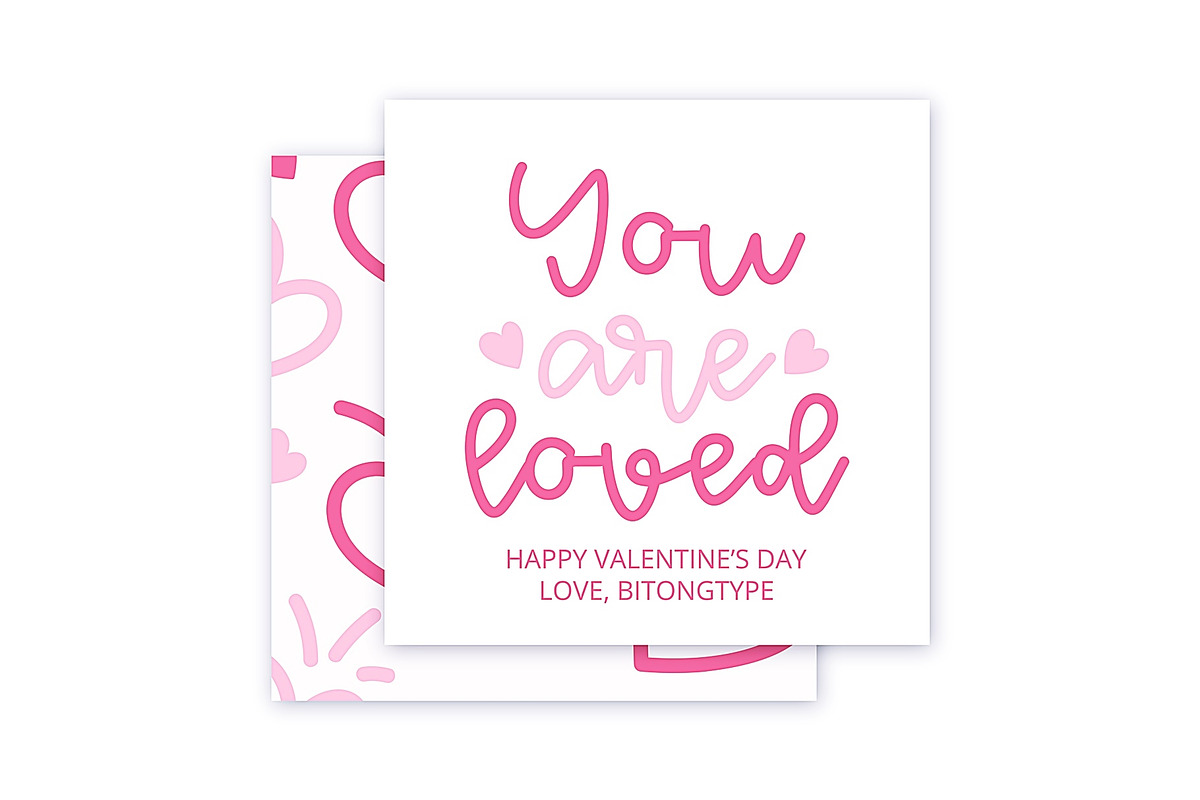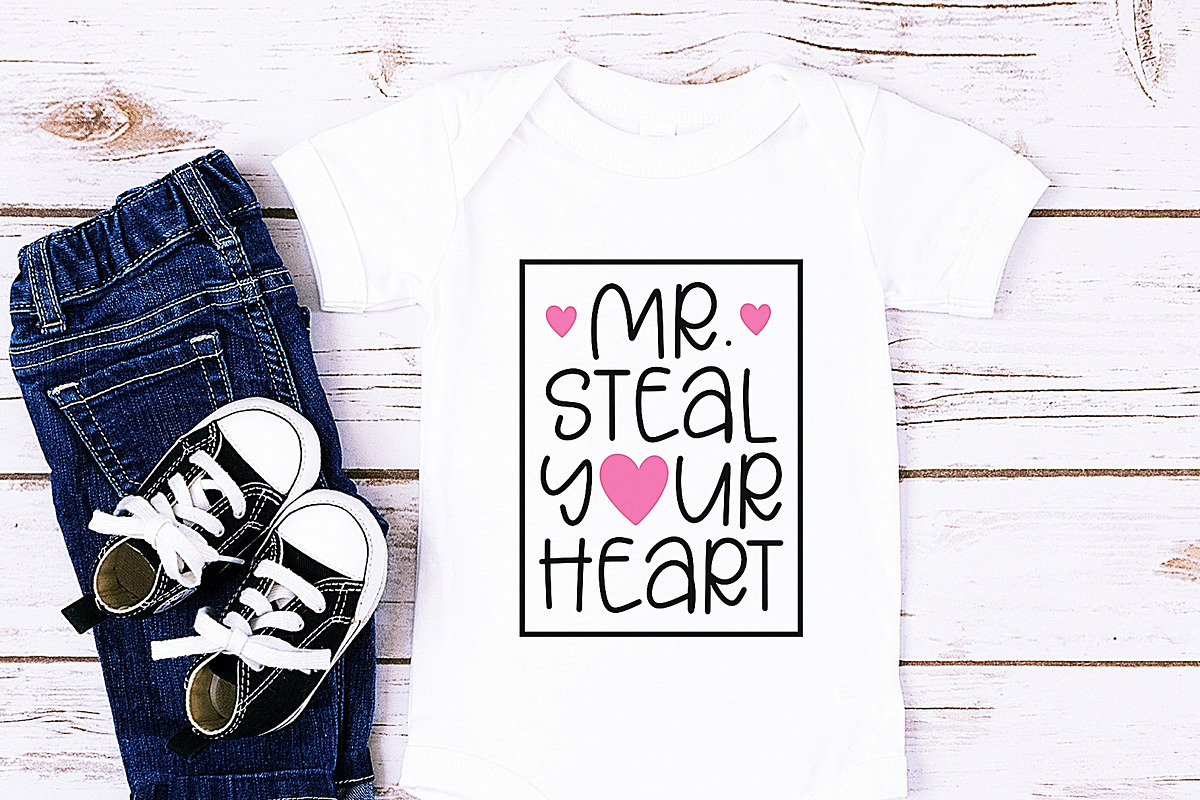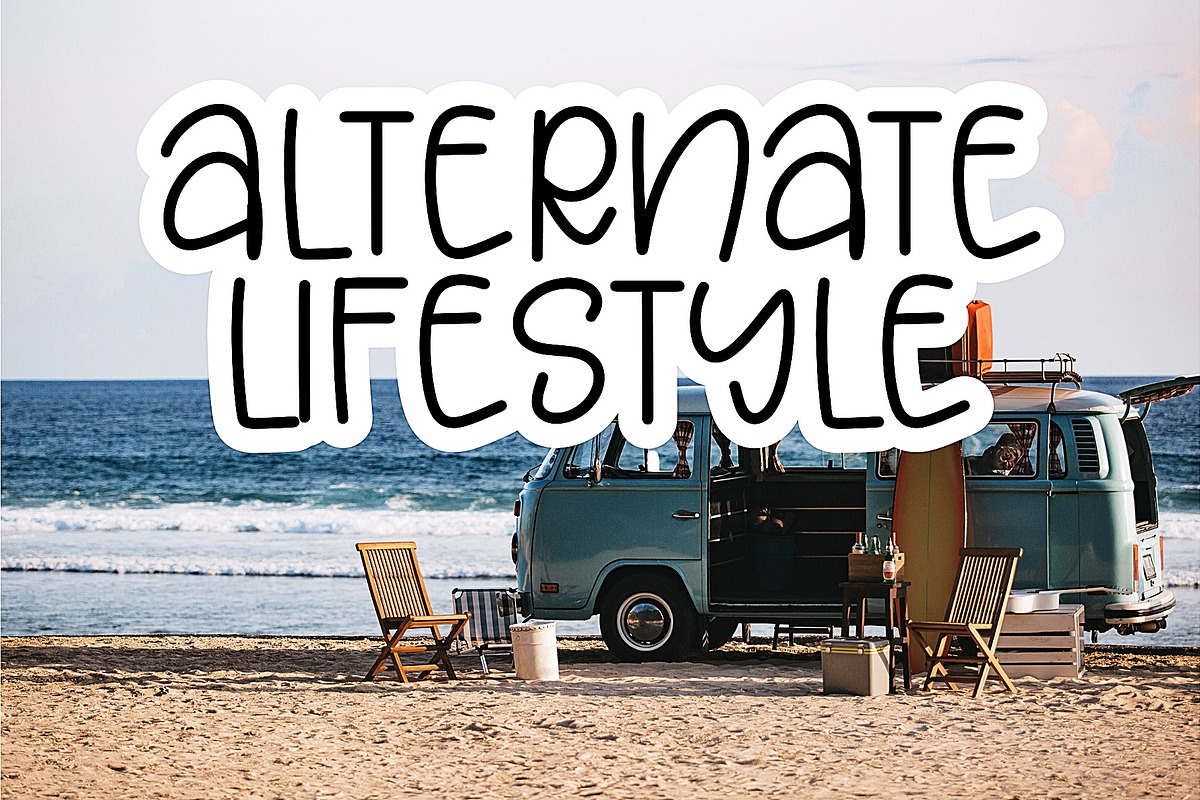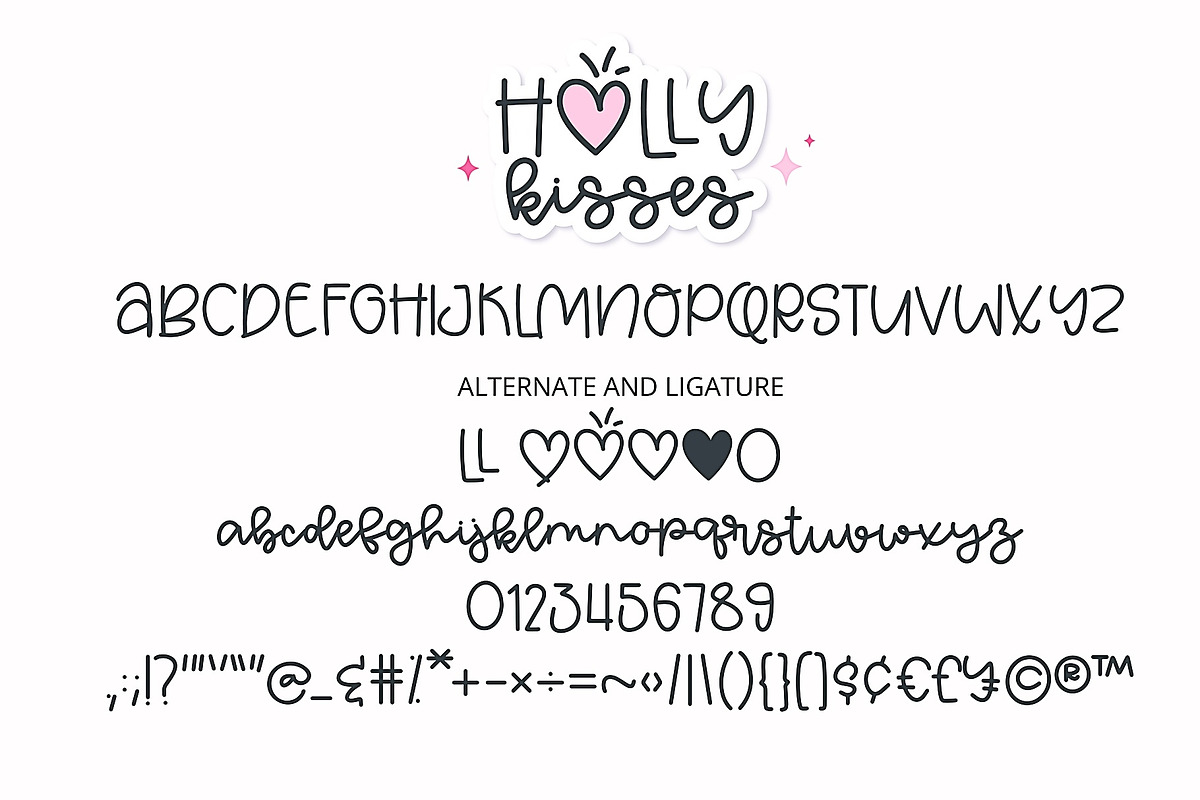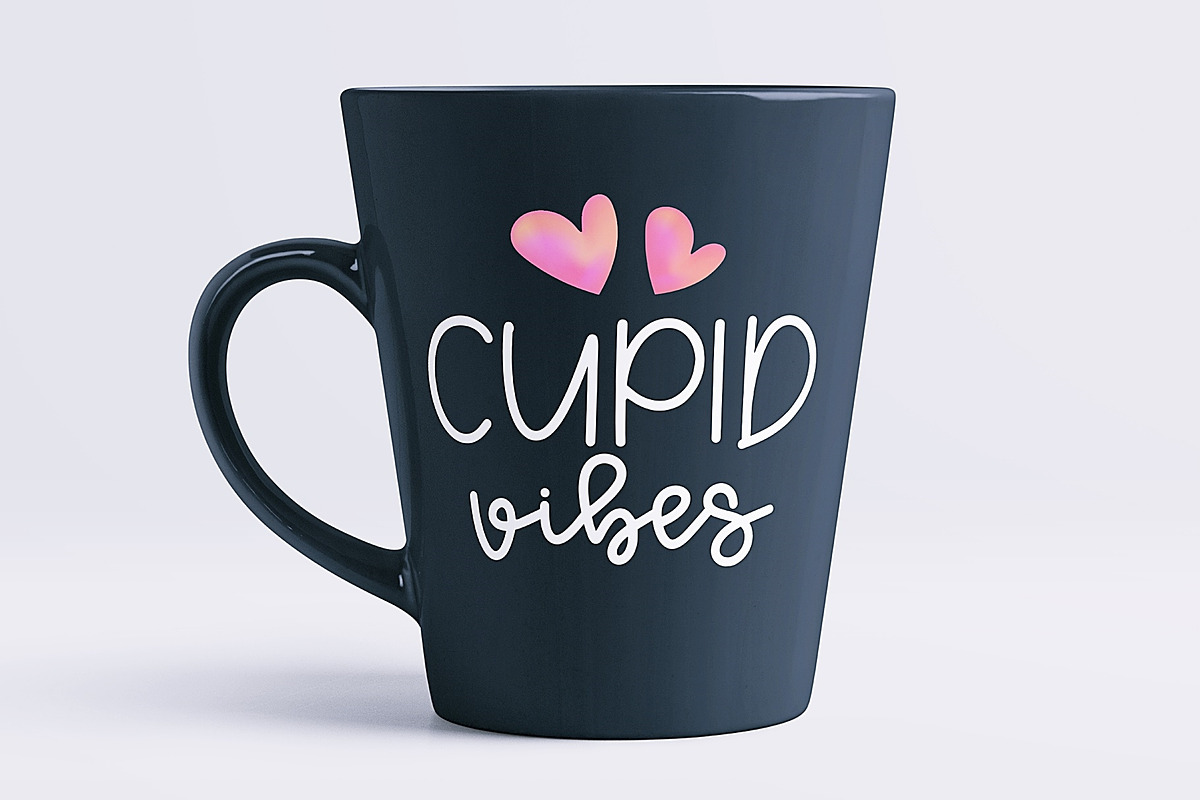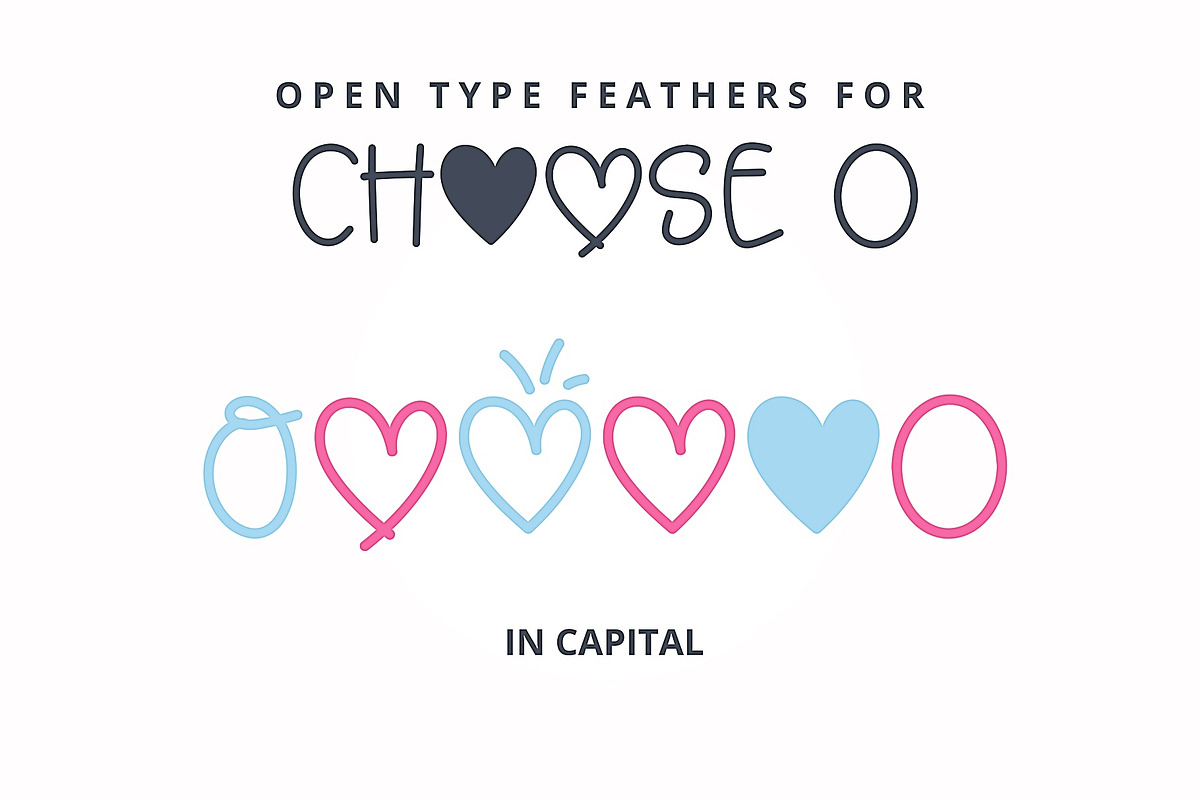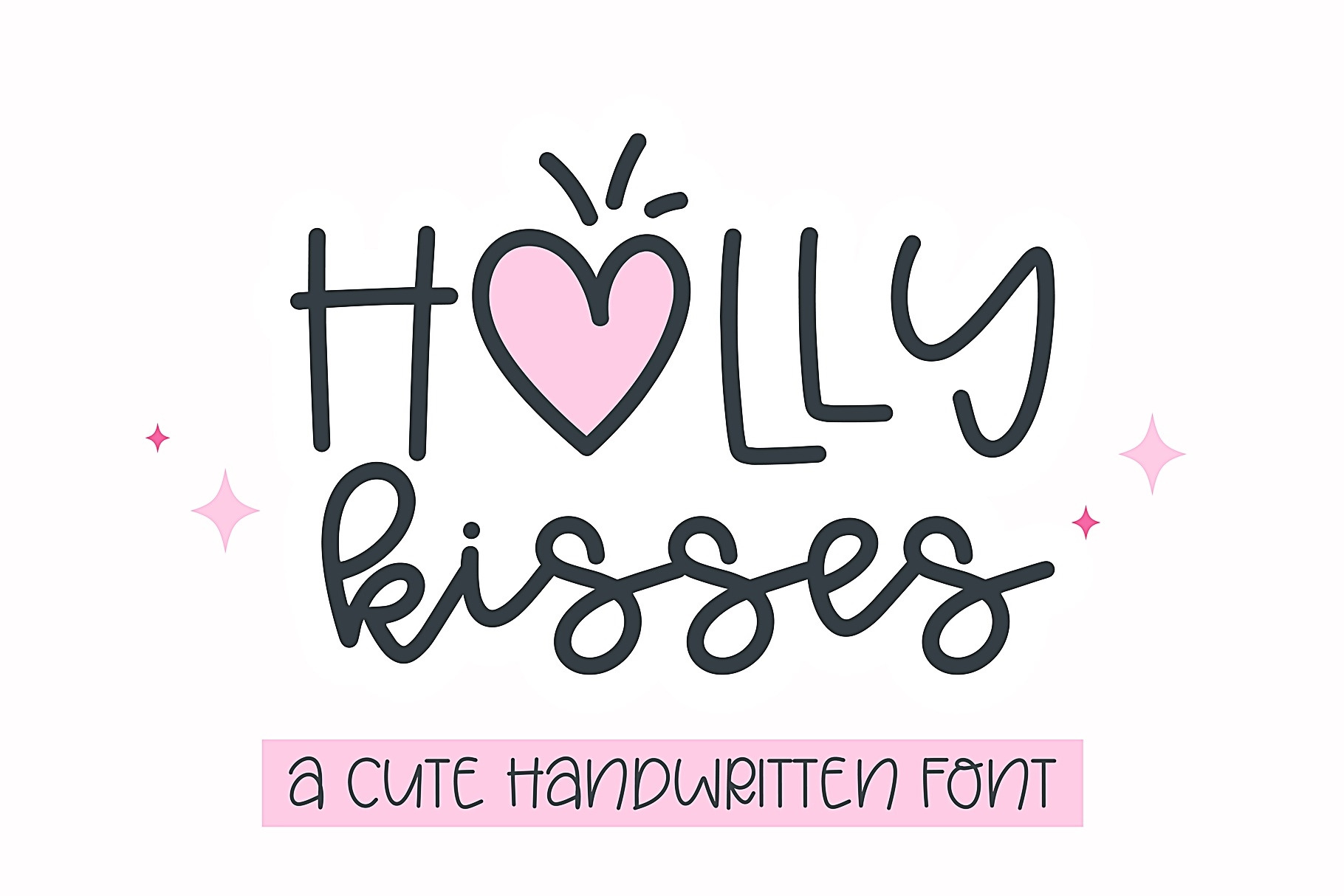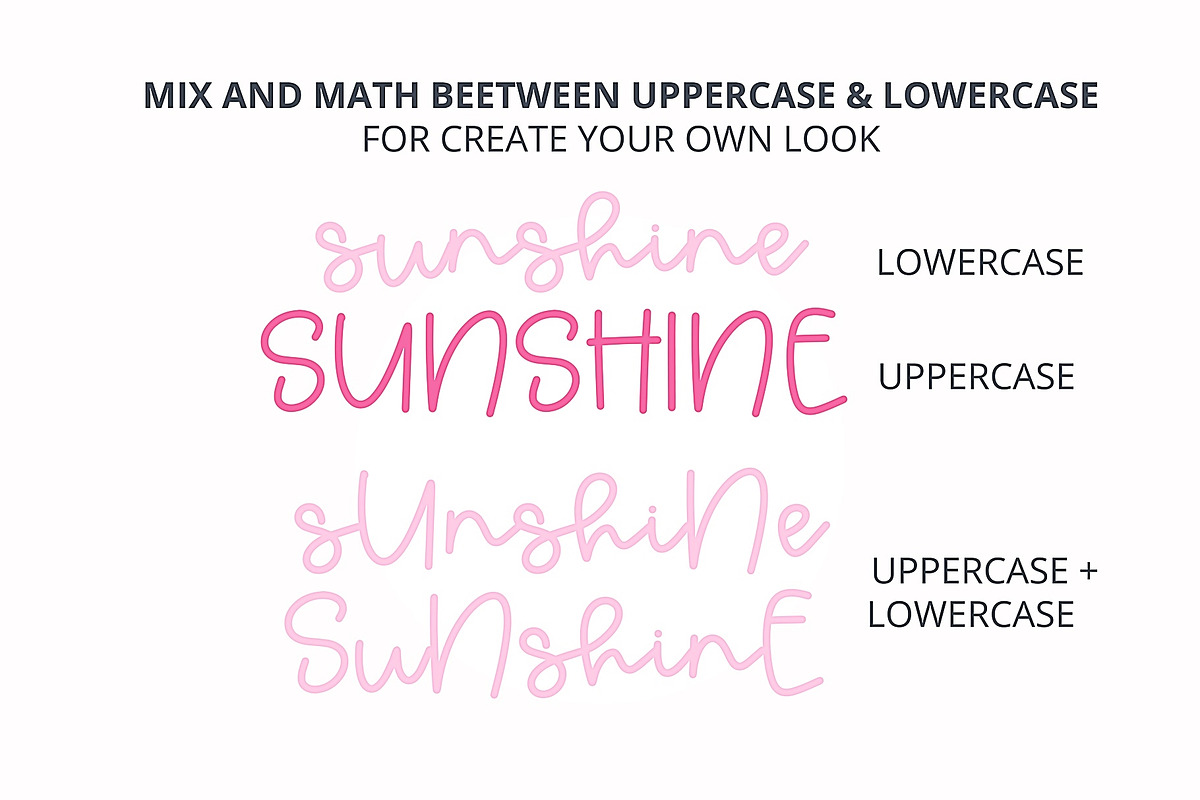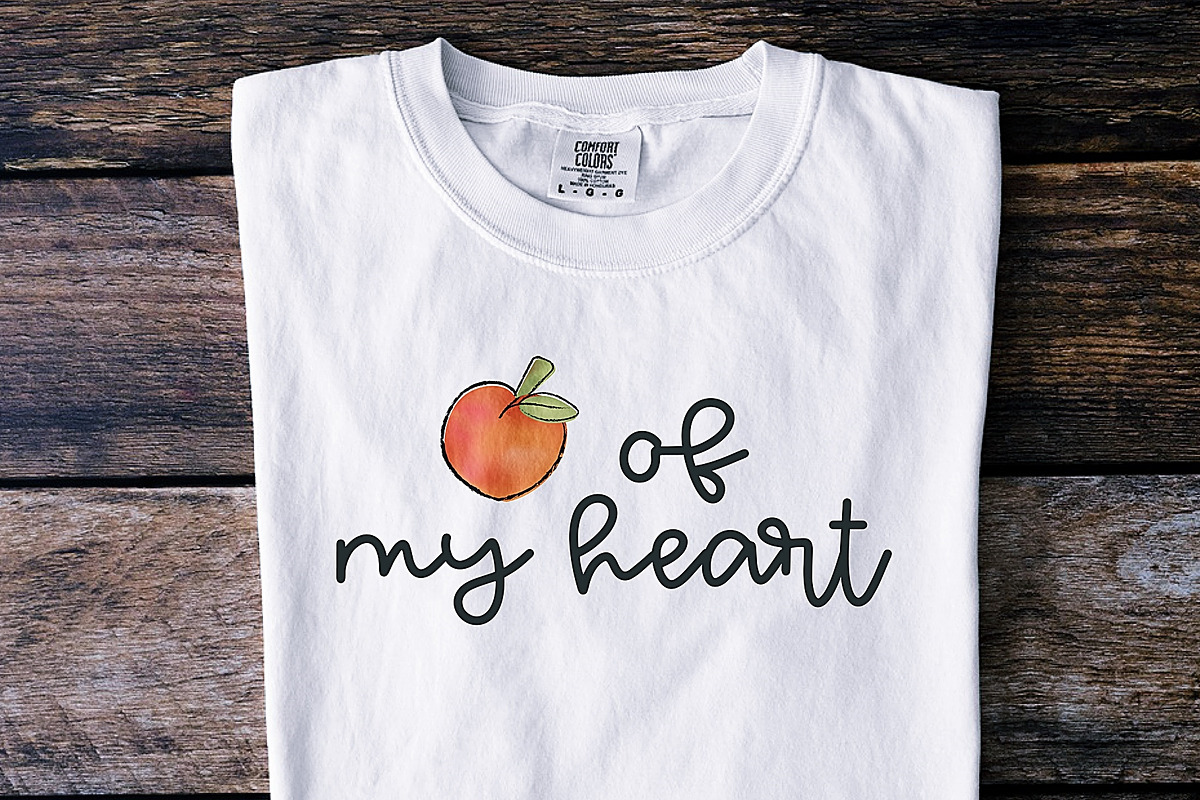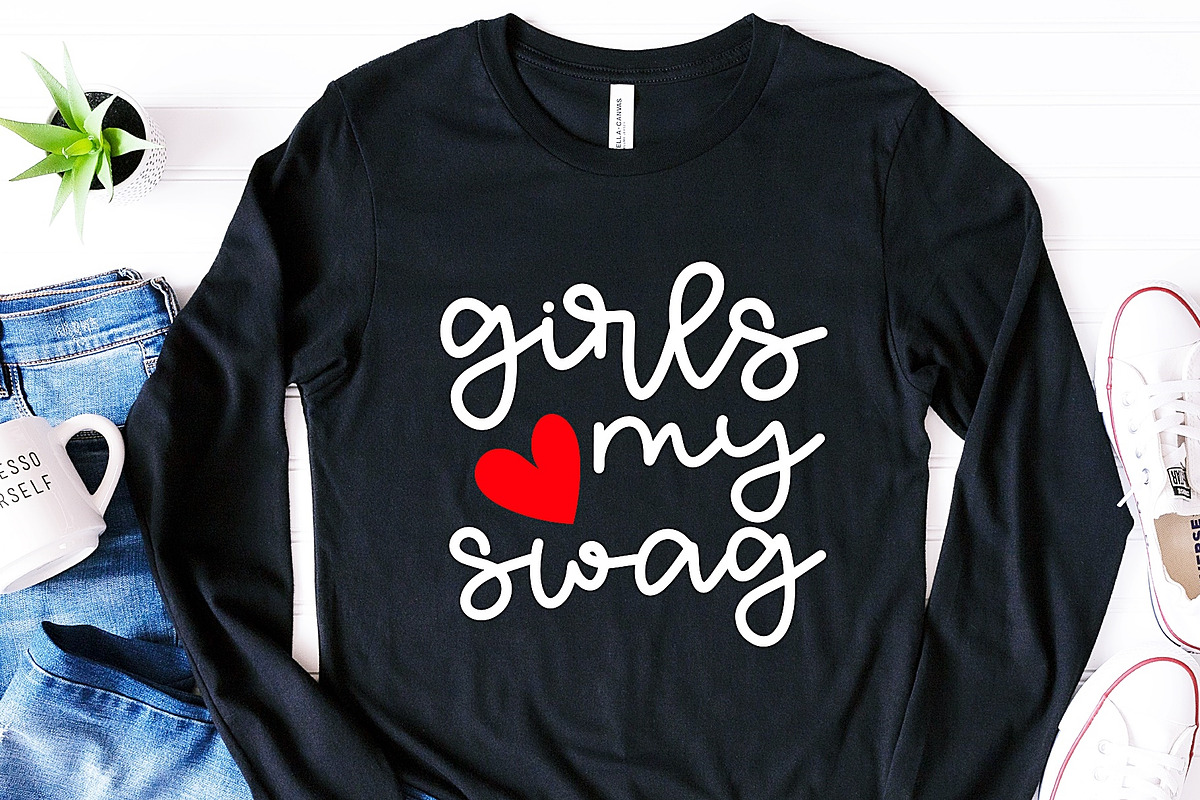
Holly Kissed - Cute script font
Holly Kissed Font - Cute Handwritten Script for Your Valentine's Projects
Introducing Holly Kissed, a delightful handwritten script font designed with love for your Valentine's Day projects! This cute and modern monoline font features playful, casual letterforms that mimic the sweet, informal handwriting style, perfect for adding a personal touch to your designs.
What makes Holly Kissed special?
Heart-shaped O's: The uppercase letter 'O' comes with 5 adorable heart-shaped alternate options, letting you add even more love to your creations
Seamless Mixing: Designed for versatility, this font allows you to mix lowercase and uppercase letters effortlessly, enabling you to create a unique, quirky, and fun vibe for your projects.
Whether you're crafting invitations, greeting cards, social media posts, or any other design, Holly Kissed brings a fresh, cute, and playful feel to your work. Perfect for Valentine's Day, love letters, or any project that needs a bit of sweet charm!